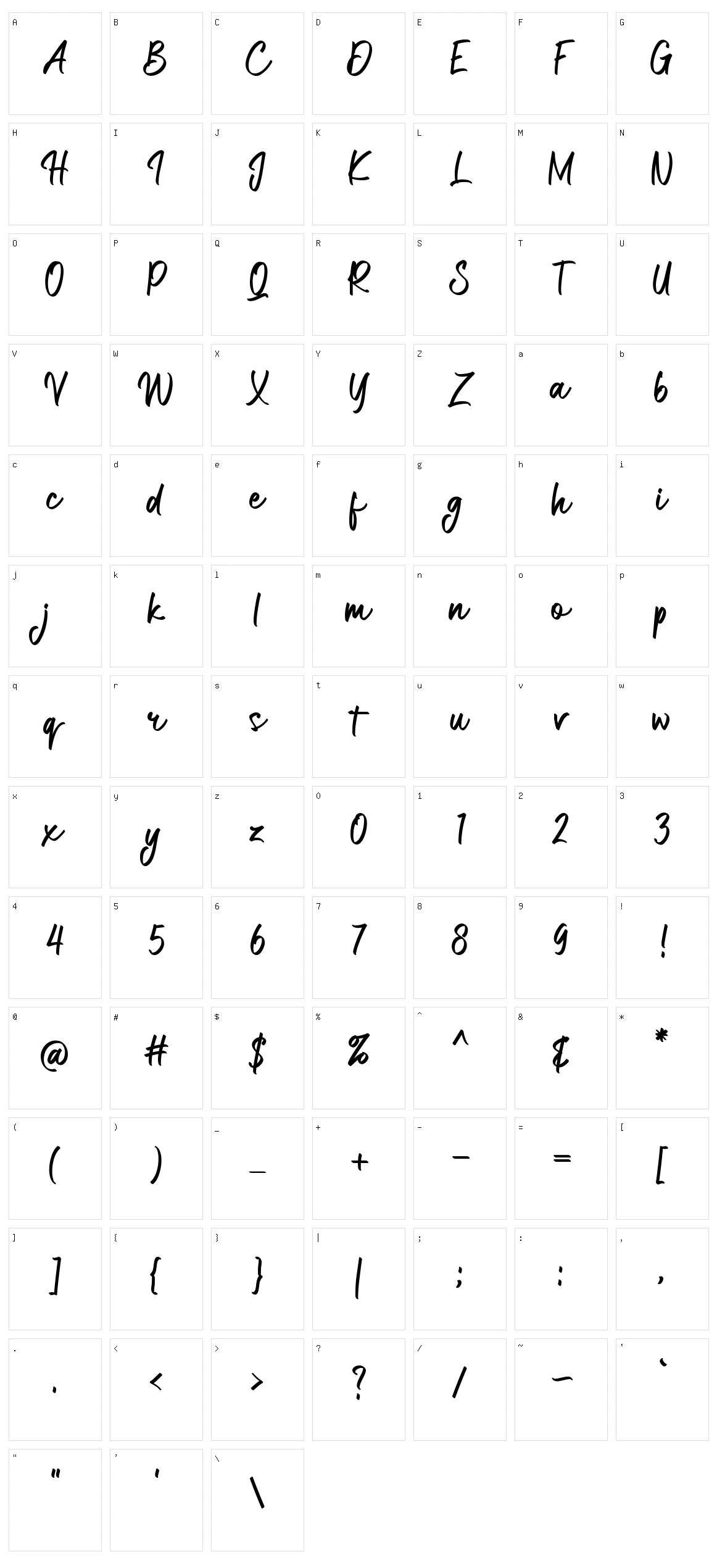
The free font Luxembergh is carefully designed by VampStudio, showcasing a thoughtful balance of creativity and usability and falls under the Script font style. When you download the ZIP file, it contains only 28.4 KB of font files, making it lightweight and quick to download. Please review the license details below to understand permitted usage and distribution rights. If license information is not available, we recommend using this font for personal projects only or contacting the author directly for commercial usage permissions.